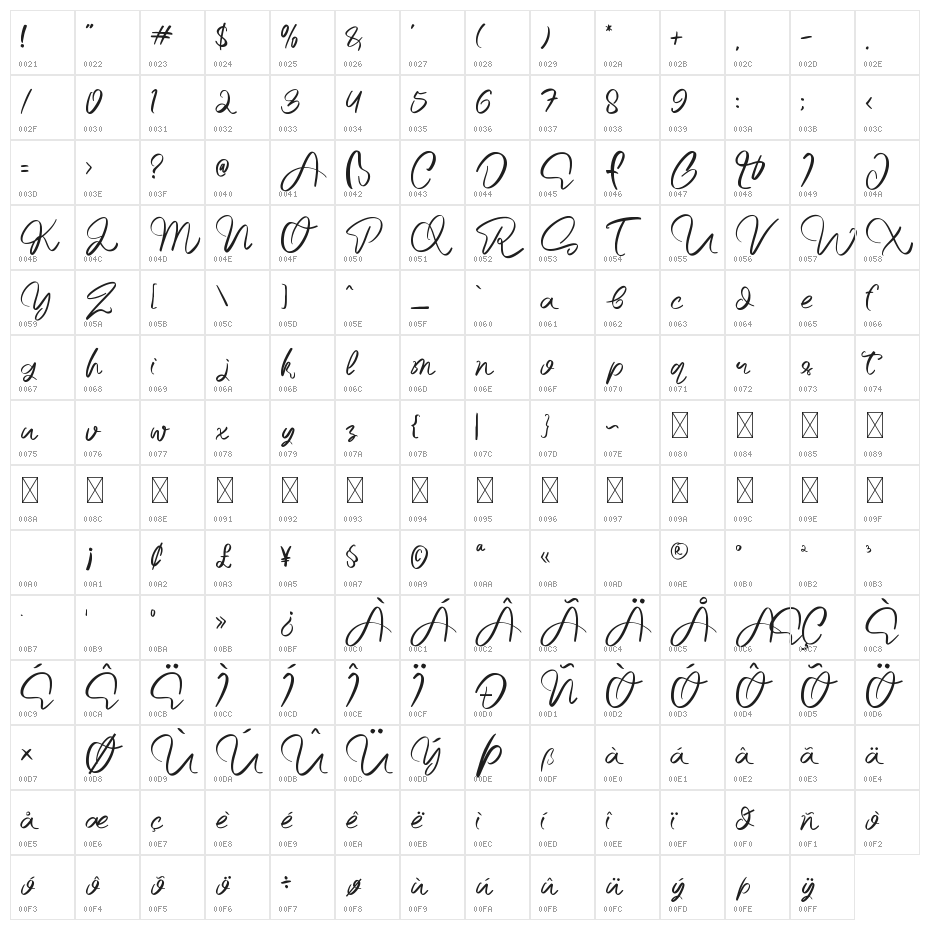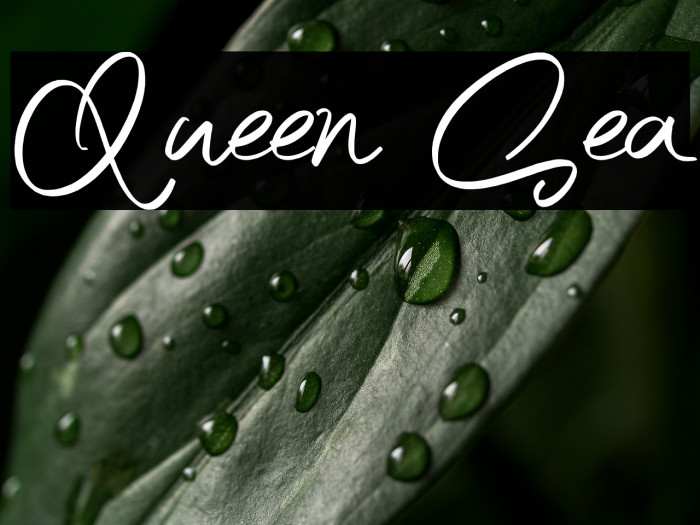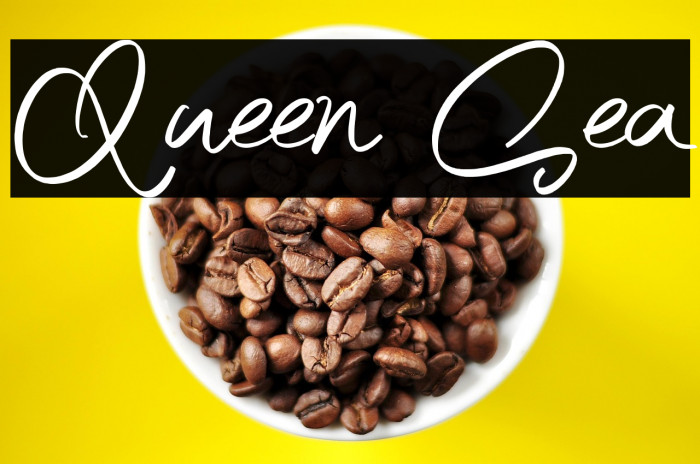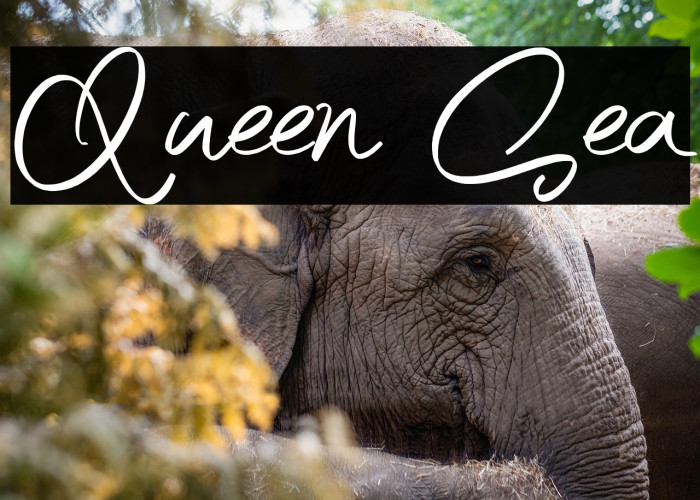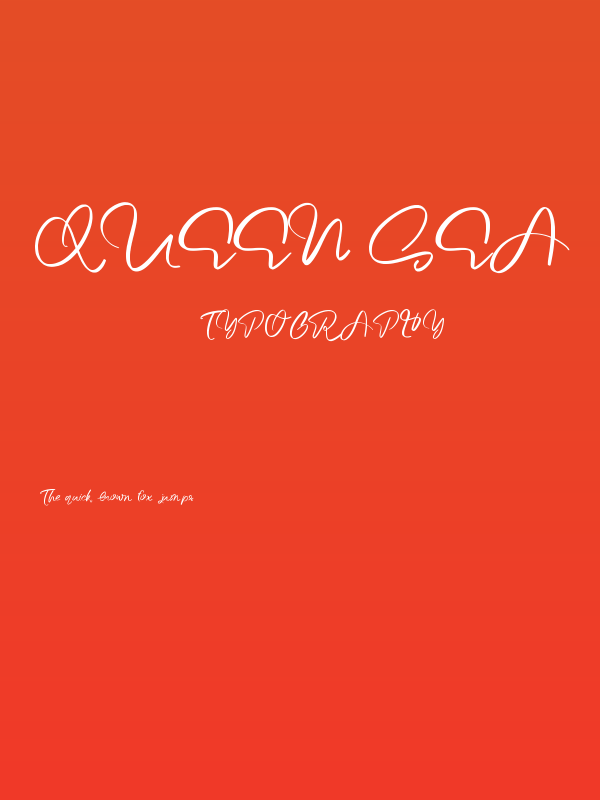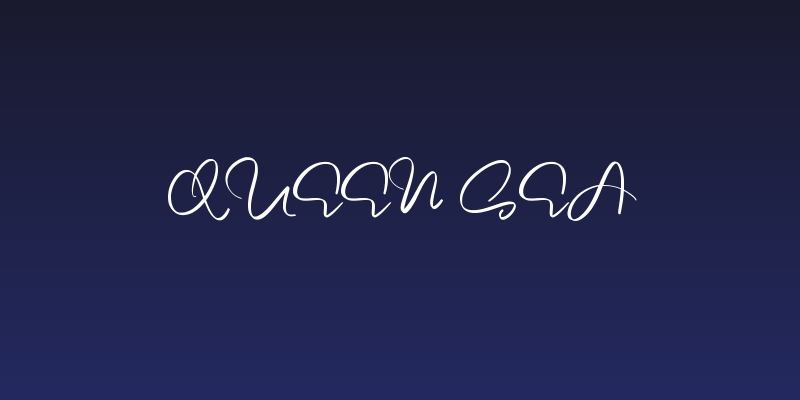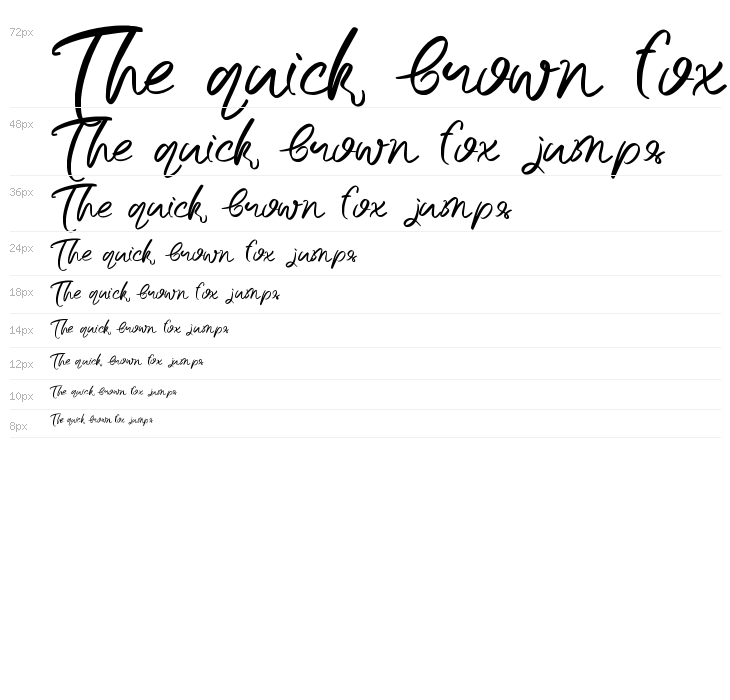
Queen Sea Font
Queen Sea Description
This font exudes a lively and dynamic energy with its fluid, cursive style. The characters are interconnected, creating a seamless flow that mimics natural handwriting. The strokes vary in thickness, adding a sense of movement and personality. The uppercase letters are bold and expressive, while the lowercase letters maintain a consistent rhythm. Numbers and special characters are crafted with the same attention to detail, ensuring a cohesive look across all elements. This font is perfect for projects that require a personal touch, such as invitations, greeting cards, and creative branding.
| Use Case | Logos, Headlines, Creative projects |
| Proposed Projects | Ideal for invitations, greeting cards, and creative branding projects. |